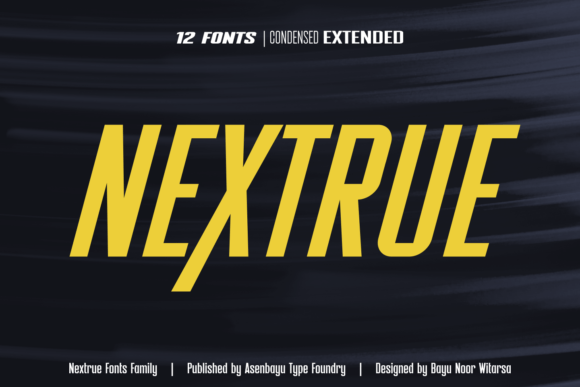
Journey into the realm of Nextrue, a sans serif font family crafted with precision and flair. This remarkable creation by asenbayu promises to ignite your creative spirit, leaving you awe-inspired by its sleek and sporty aesthetics.
With Nextrue as your creative companion, unleash your imagination and transform ordinary designs into extraordinary masterpieces. Its bold and confident strokes command attention, making it the perfect choice for sports jersey numbers, logos, posters, and headlines that demand to be seen.
Nextrue is not just a font; it's an experience that transports you to the heart of athleticism and dynamism. Its sharp edges and fluid curves evoke a sense of speed and energy, propelling your designs to new heights of excellence.
But Nextrue's versatility extends far beyond the world of sports. Its clean and contemporary lines lend an air of sophistication to branding, packaging, website designs, and even social media graphics. No matter the canvas you choose, Nextrue will effortlessly elevate your creations, leaving a lasting mark on your audience.
Step into the realm of possibilities with Nextrue, the font that captures the essence of athleticism, modernity, and timeless style. Its PUA encoding ensures effortless access to a world of glyphs and alternates, empowering you to unleash your creative genius without limits.